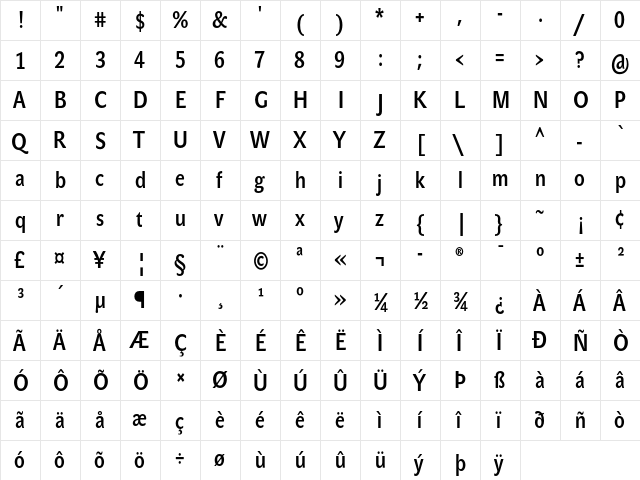
JohnSansCond Lite Pro Bold
Design Context for JohnSansCond Lite Pro Typeface
JohnSansCond Lite Pro offers clean, dependable letterforms without strong stylistic allegiance, making it a practical choice for designers who need flexibility. The heavy weight commands attention and anchors typographic hierarchies. Its narrow stance lets it pack a punch even in space-constrained designs.